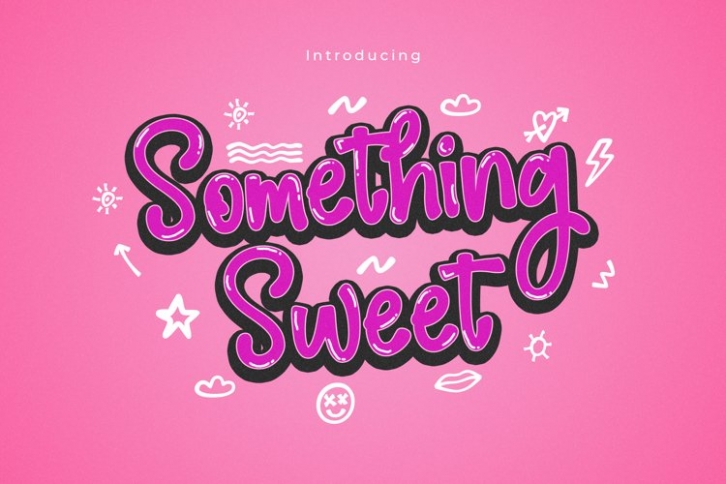
Something Sweet is a great font that was designed by plusstore. Imagine the amount of combinations you can create using this font! The archive is 3.1 MB and it was released on November 6, 2022. Something Sweet looks beautiful on wedding invitations, greeting cards, logos, posters, labels, t-shirt designs, logos, business cards and is perfect for use in ink or watercolor works, fashion, magazines, packaging and food menus, children's books and more!